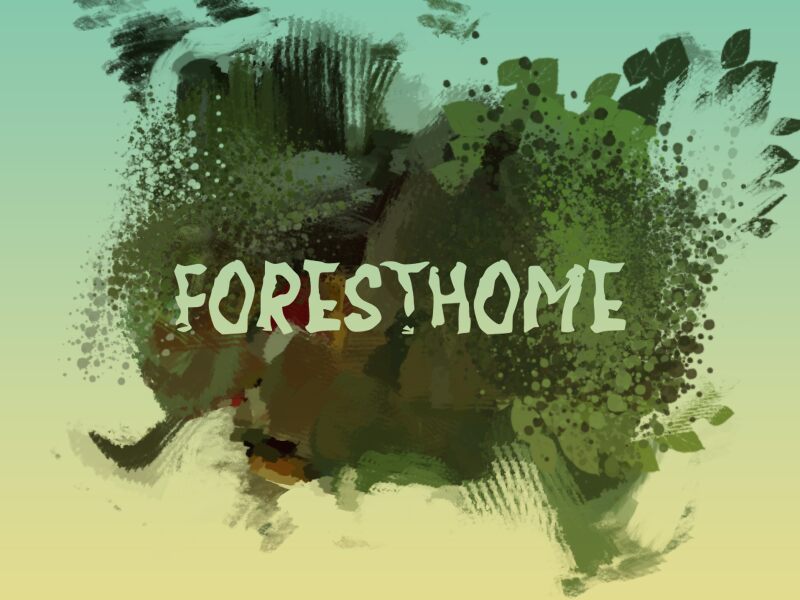
FORESTHOME
Foresthome, a captivating creation by wep, is a mesmerizing display font that pushes boundaries with its unique distorted style. With its whimsical and unconventional letterforms, Foresthome is perfect for projects seeking an edgy and artistic touch.
Its distorted shapes evoke a sense of mystery and intrigue, making it ideal for album covers, movie titles, or any design that demands attention. Whether used in branding or packaging, this one-of-a-kind font will add an unexpected twist to your creative endeavors.
Let Foresthome transport your audience to a world where imagination runs wild.